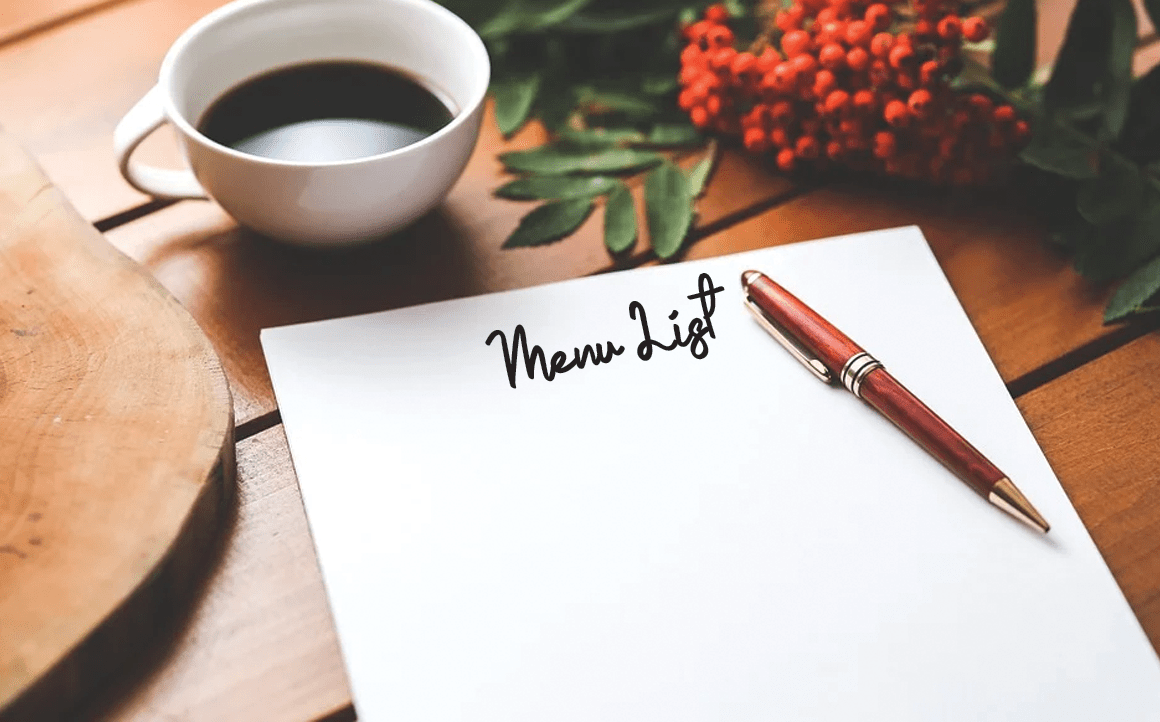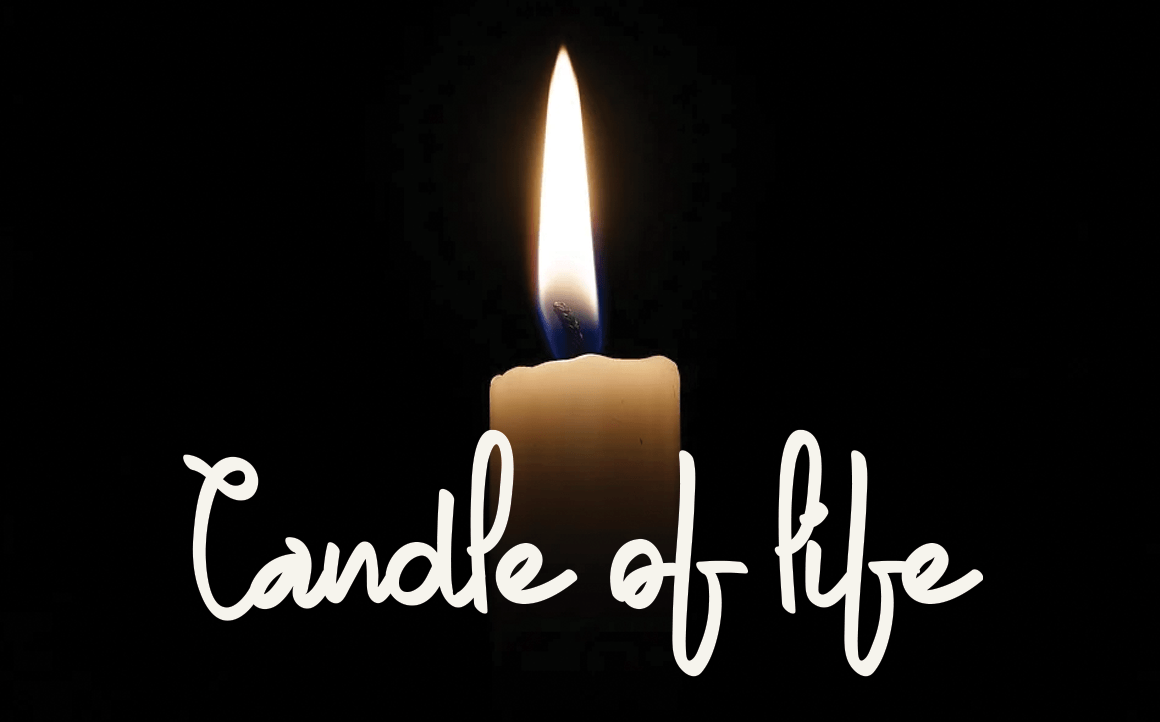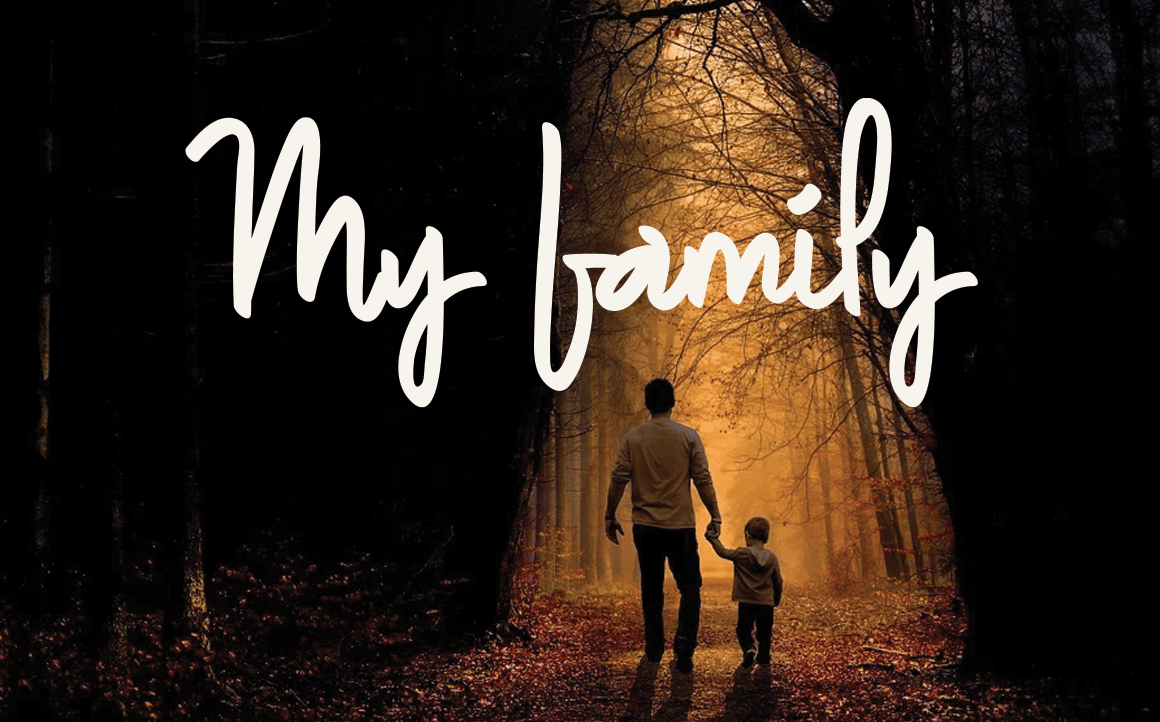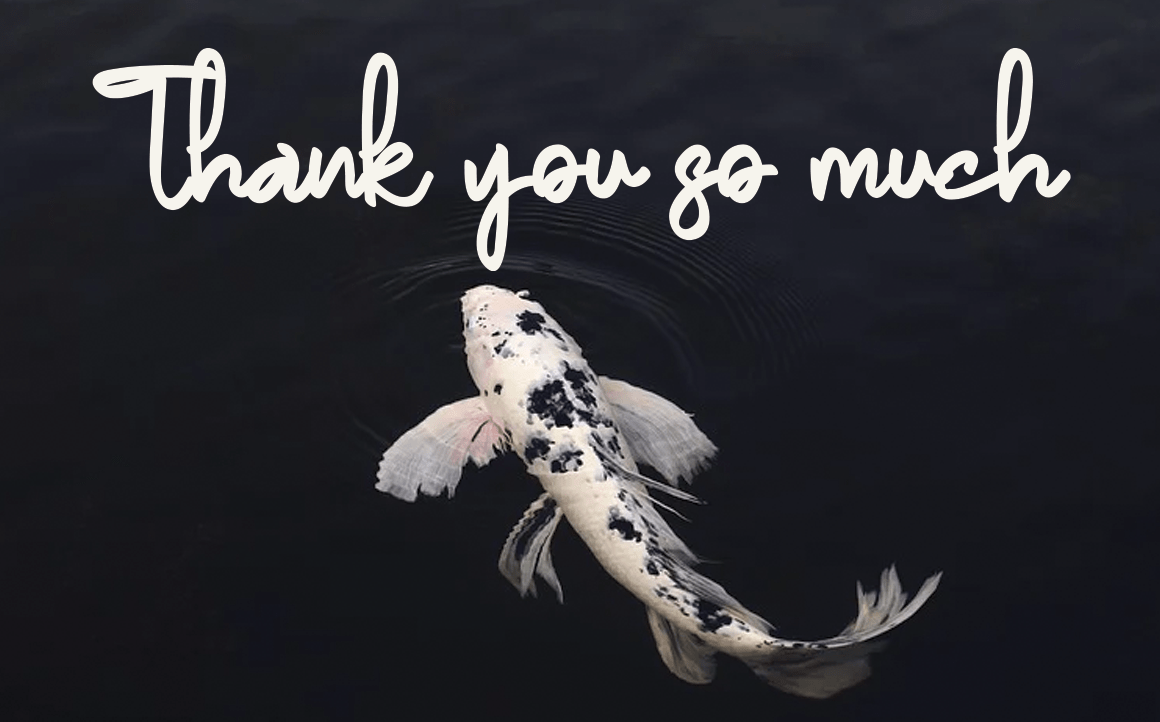
4th Of July Is Coming Font
4th Of July Is Coming Script Font
This is a unique, fun and friendly handwritten font. Whether you’re looking for a font for Instagram or a calligraphy script for a DIY project, this font will turn any creative idea into a true work of art!